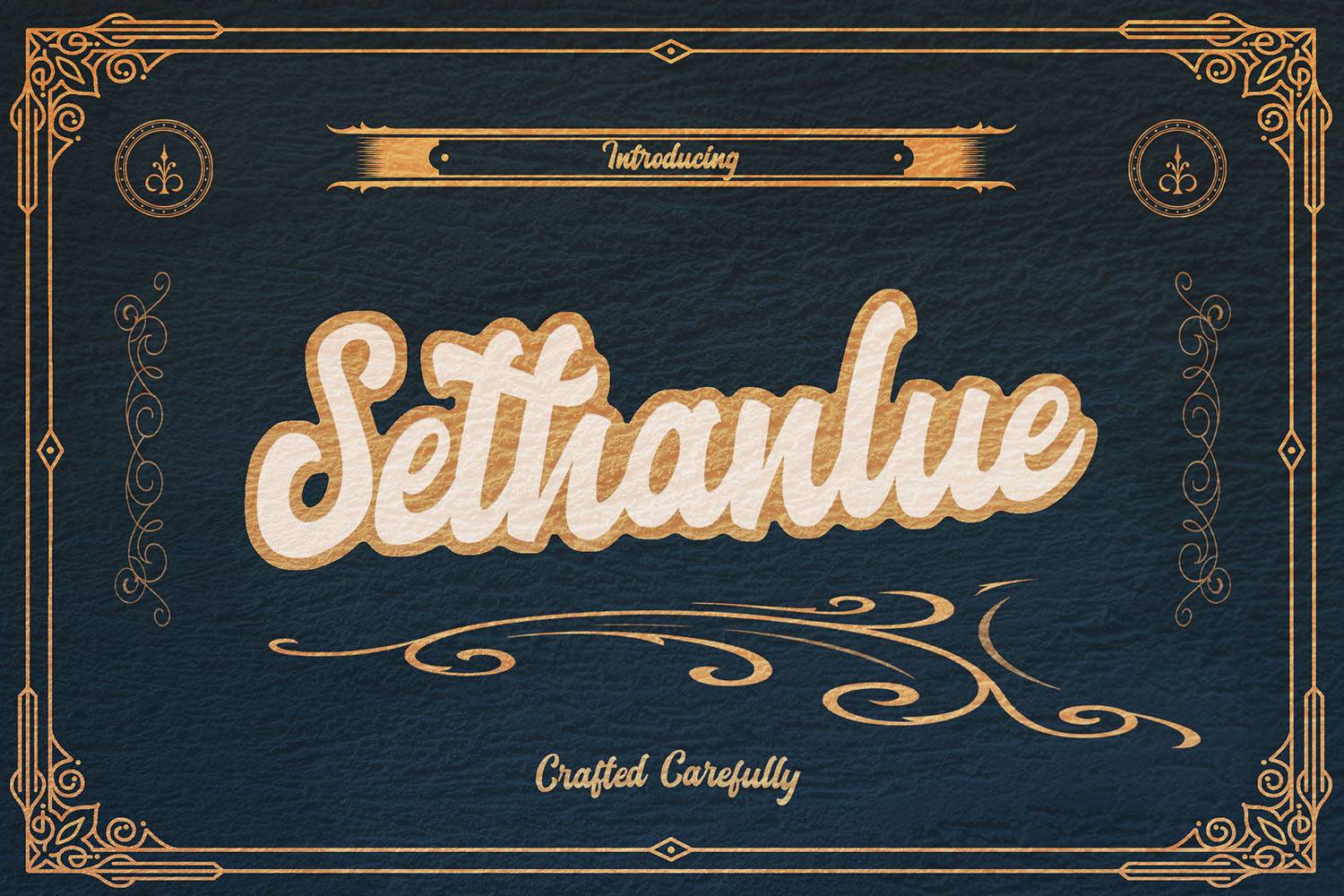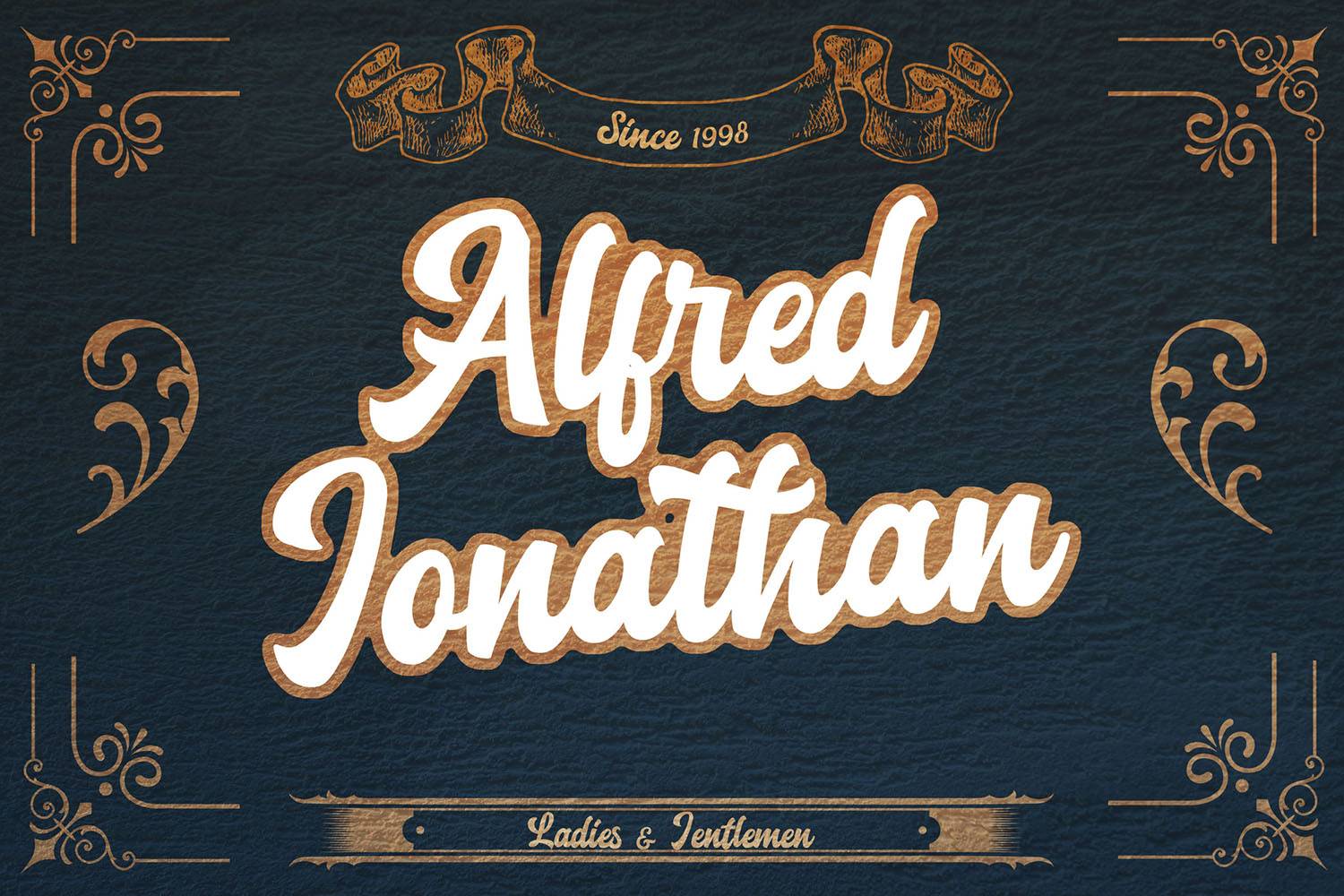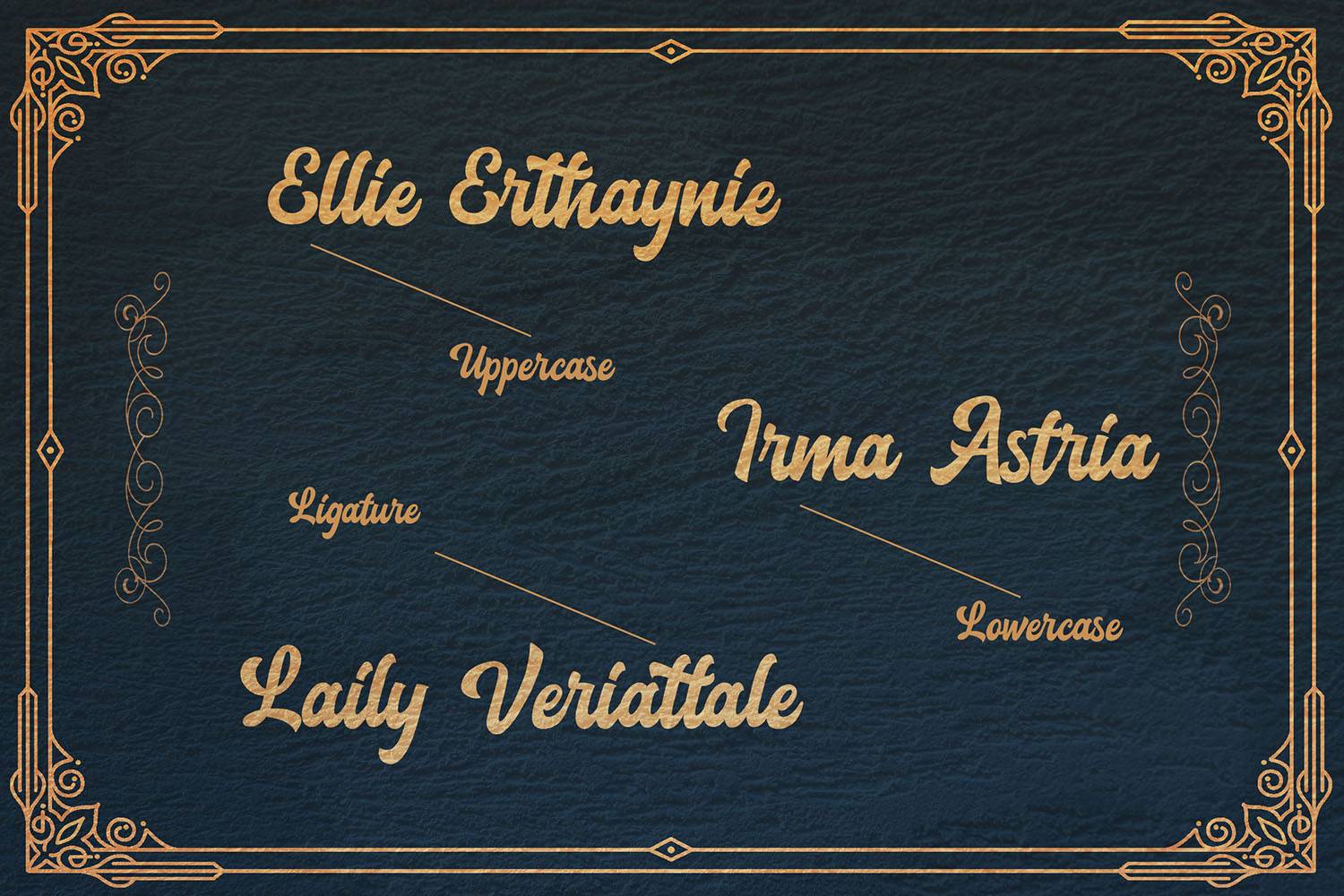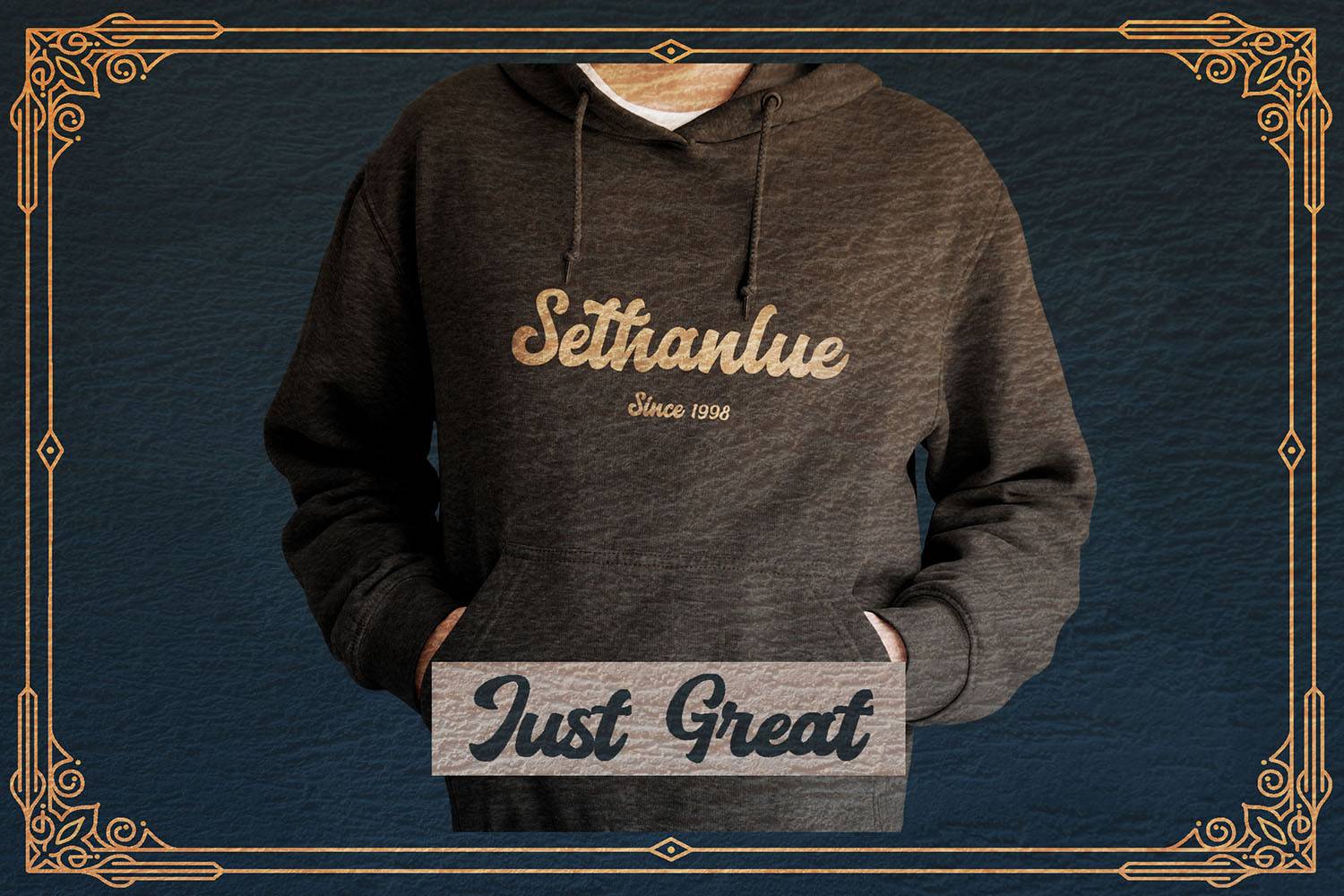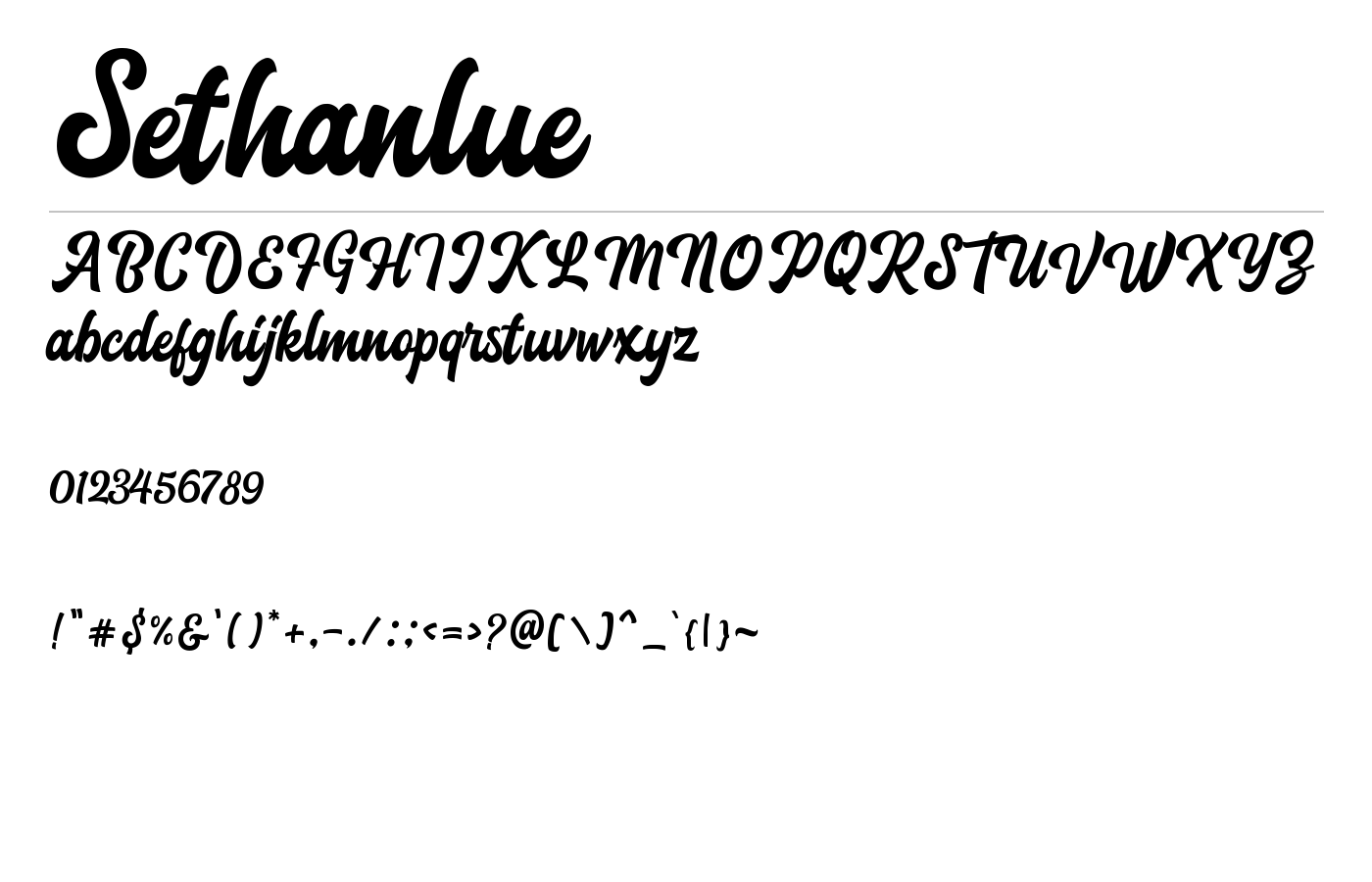
Sethanlue is a bold, script-style font with a smooth, flowing design that combines both elegance and a friendly, approachable vibe. Its rounded, connected letterforms and moderate contrast make it ideal for branding, headlines, and decorative uses where a personal, hand-crafted feel is desired. This font works well for logos, invitations, and packaging that seek to convey warmth and style with a vintage yet lively touch.
Sethanlue Font
About Sethanlue Font
| Font family | Sethanlue Font |
| Designer | Fahmi Yudistira |